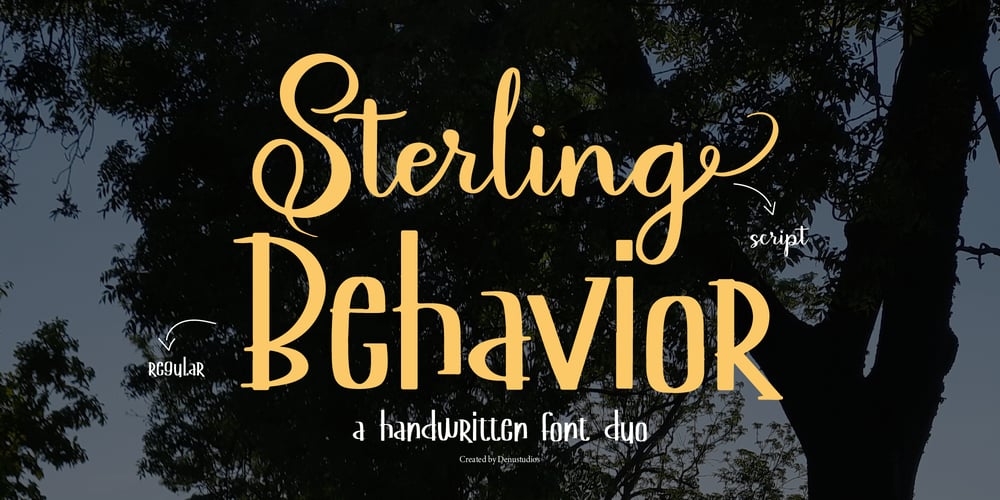
Sterling Behavior
Sterling Behavior font
Sterling Behavior Font Family was designed by Dede Nugraha and published by Denustudio. Sterling Behavior contains 1 styles and family package options. Sterling Behavior | Handwritten Font, from Denustudios, suitable for any projects such as: logos, branding projects, homeware designs, product packaging, mugs, quotes, posters, shopping bags, t-shirts, book covers, name card, invitation cards, greeting cards, label, photography, watermark, special events, and all your other lovely projects that need a Handwritten Font taste.===========================================================================What’s Included : Regular and Italic Web Font Standard glyphs Alternate and Ligature Works on PC & Mac Simple installations Accessible in the Adobe Illustrator, Adobe Photoshop, Adobe InDesign, even work on Microsoft Word and Other Software. PUA Encoded Characters – Fully accessible without additional design software. Fonts include multilingual support Hope you enjoy with our font!